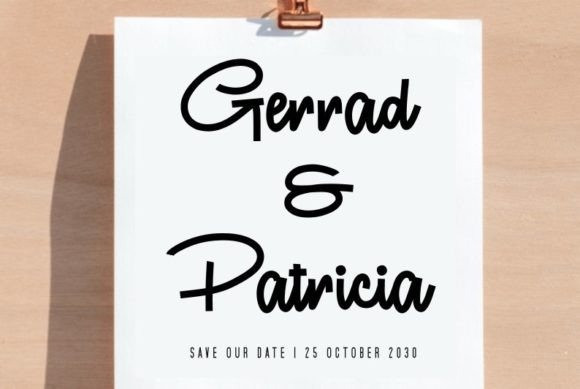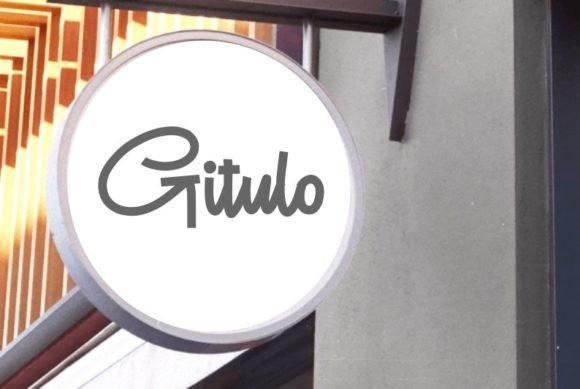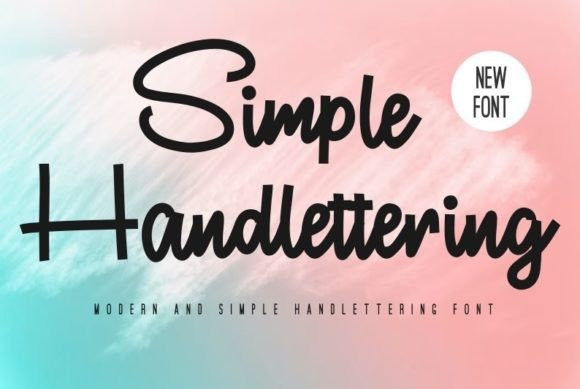
Simple Handlettering Font
Simple Handlettering Script Font is a beautiful and bold handwritten font ideal for logos, wedding stationery, photography watermarks, modern websites, and more. Fall in love with its incredibly distinct and timeless style, and use it to create spectacular designs!